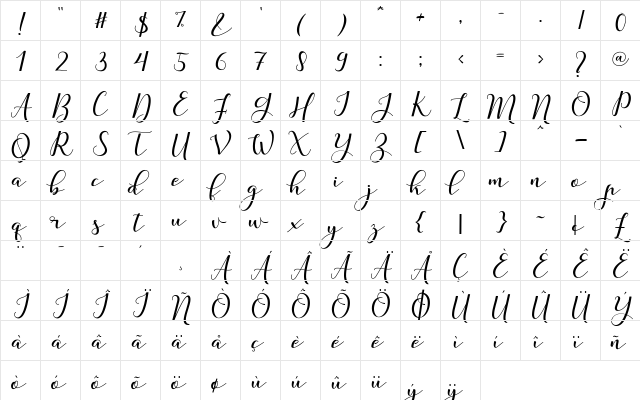
Nafigat Script Regular
| Foundry | Stipline Studios |
| Designer | Teuku Bahraini |
Design Context for Nafigat Script Typeface
Nafigat Script brings a calligraphic fluidity to the page — its connecting strokes and expressive curves give it an unmistakably human quality.
Font Pairing: Combine Nafigat Script with a simple geometric sans for maximum contrast — the tension between flowing curves and clean structure is a classic typographic pairing.